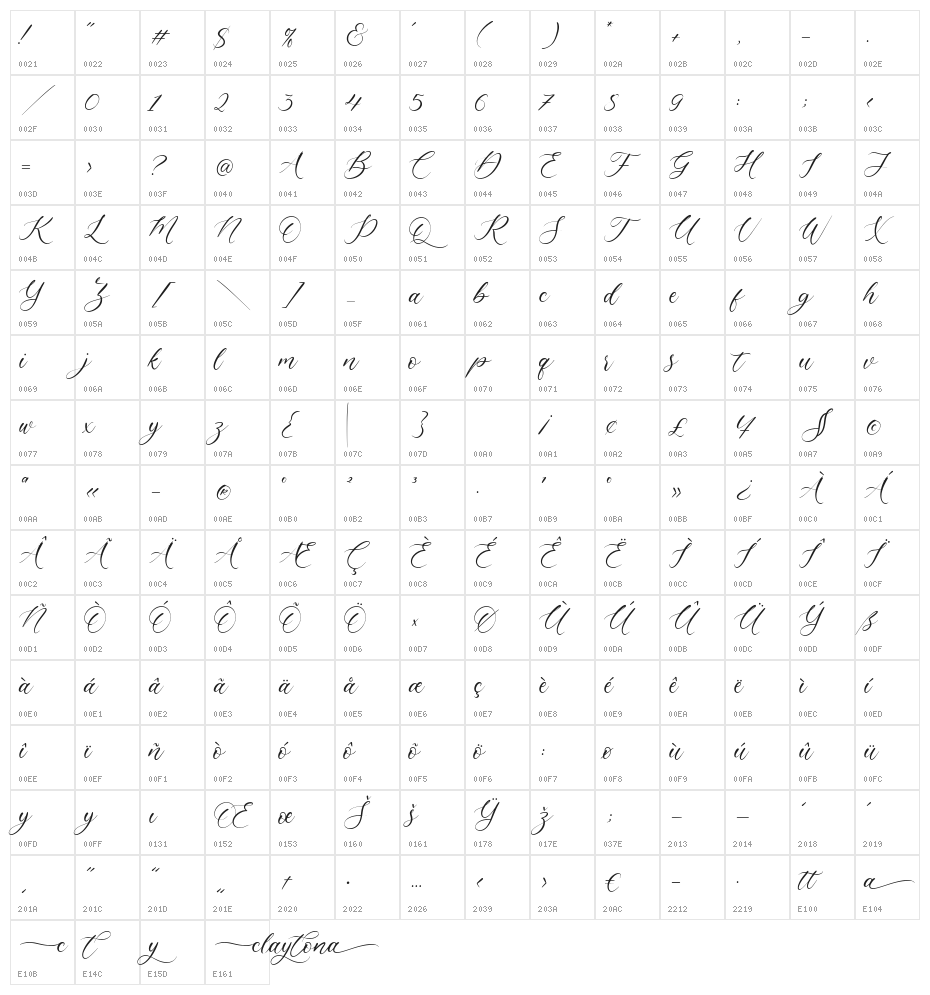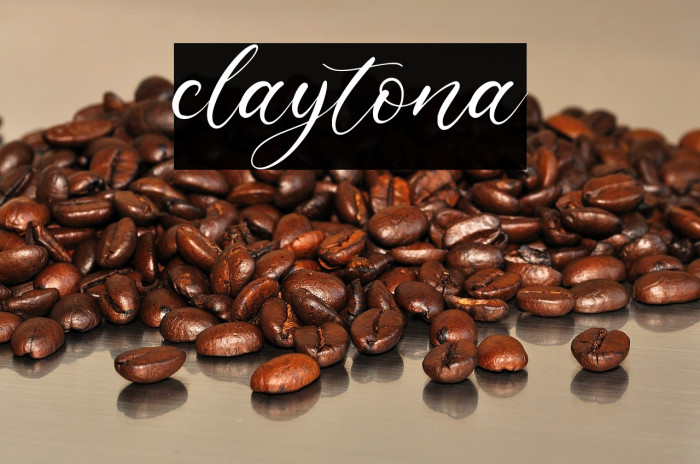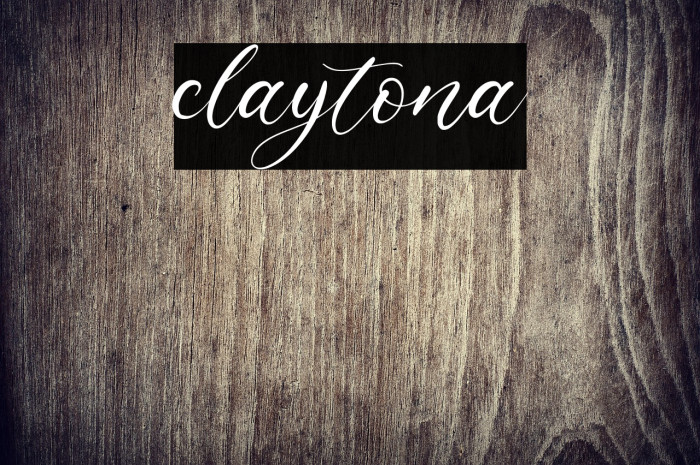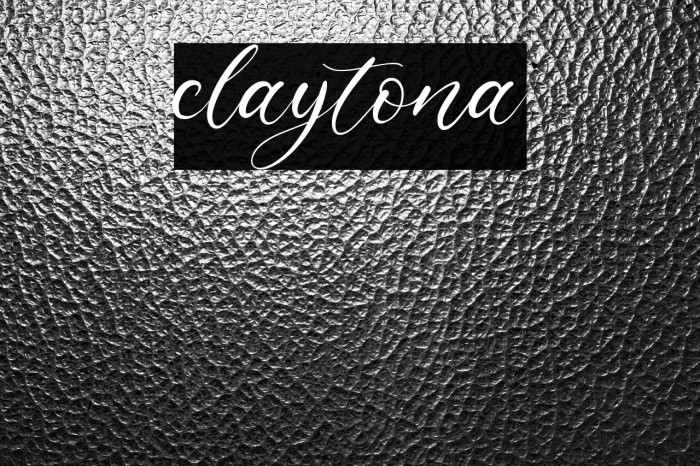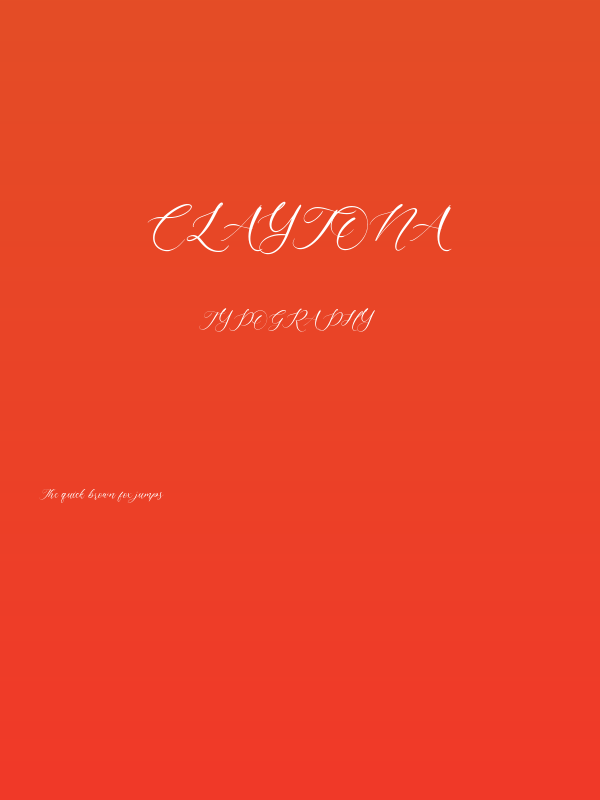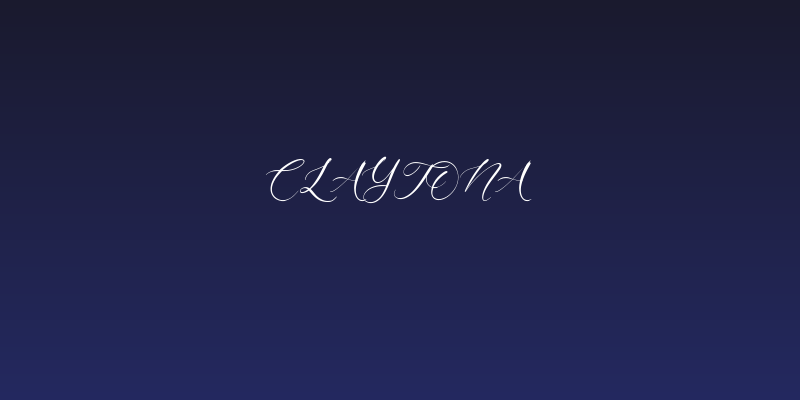
claytona Font
claytona Description
This elegant script font features flowing, cursive letterforms with a high degree of sophistication and grace. The uppercase letters are characterized by sweeping ascenders and descenders, creating a sense of movement and fluidity. The lowercase letters maintain a consistent style, with delicate loops and curves that enhance the overall aesthetic. The numerals are equally stylish, complementing the alphabet with their graceful curves. Special characters are thoughtfully designed to match the font's ornate style. This font is perfect for projects that require a touch of elegance and refinement.